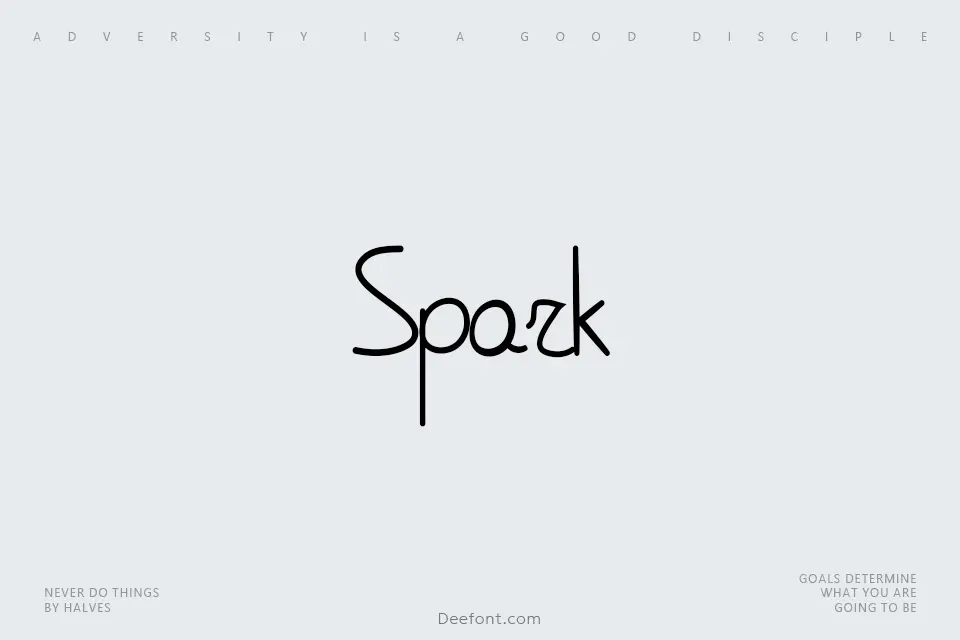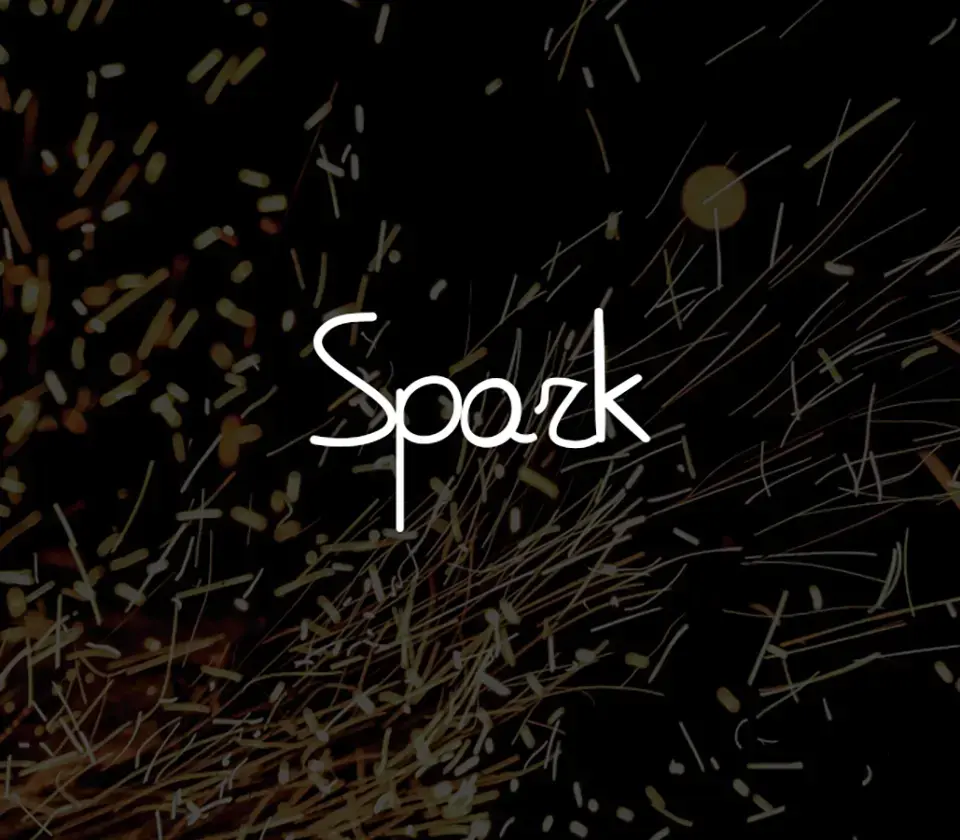
Spark Font
Spark Font is a flowing handwritten script typeface featuring smooth, organic strokes and authentic calligraphic charm. With its elegant, naturally connected letterforms and graceful curves, this versatile display font excels in wedding invitations, greeting cards, creative posters, logo design, and branding projects. The authentic pen-drawn quality brings personality and warmth to headlines, decorative text, and premium packaging designs. Ideal for designers seeking a sophisticated yet approachable handwritten aesthetic for both digital and print applications.
Designed by:Gryn Studio